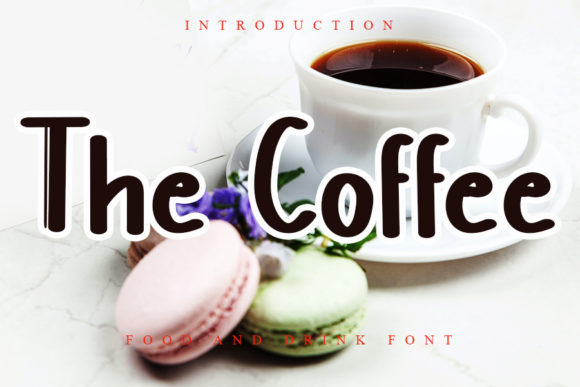
In a globalized world where creativity reigns supreme, individuality has become the cornerstone of success. To stand out in the digital realm, your brand needs a voice as unique as your products—a voice that resonates with your audience, leaving an indelible imprint on their minds. The Coffee Font, a creation of FL Space, isn't merely a collection of letters; it's a gateway to a world of limitless possibilities, where your designs transcend the ordinary and become extraordinary.
The Coffee Font, a display font, exudes simplicity, versatility, and an infectious sense of joy. Its amicable, open-hearted nature makes it the perfect companion for designers seeking to infuse their creations with a touch of warmth and cheer. With its easy-going charm, The Coffee Font effortlessly blends into any design landscape, bringing a smile to the faces of your audience.
Imagine your logo, the visual ambassador of your brand, adorned with The Coffee Font. Its friendly, inviting curves exude a sense of approachability, inviting potential customers to engage with your brand on a personal level. Whether you're crafting marketing materials, designing social media posts, or creating eye-catching headlines, The Coffee Font will elevate your message, making it impossible to ignore.
The Coffee Font is not just another font; it's a versatile chameleon that effortlessly adapts to any design style, seamlessly integrating into your creative vision. Its inherent flexibility allows you to mold it into various forms, expressing your unique style and captivating your audience with its endless variations. Experiment with different sizes, colors, and arrangements to discover the limitless potential hidden within this remarkable font.
With The Coffee Font, you'll embark on a creative odyssey, exploring new horizons of design, discovering hidden depths of expression, and leaving a lasting impression on your audience. Its cheerful spirit will permeate your creations, infusing them with a sense of optimism and joy that resonates with your customers, forging an unbreakable bond between your brand and their hearts.